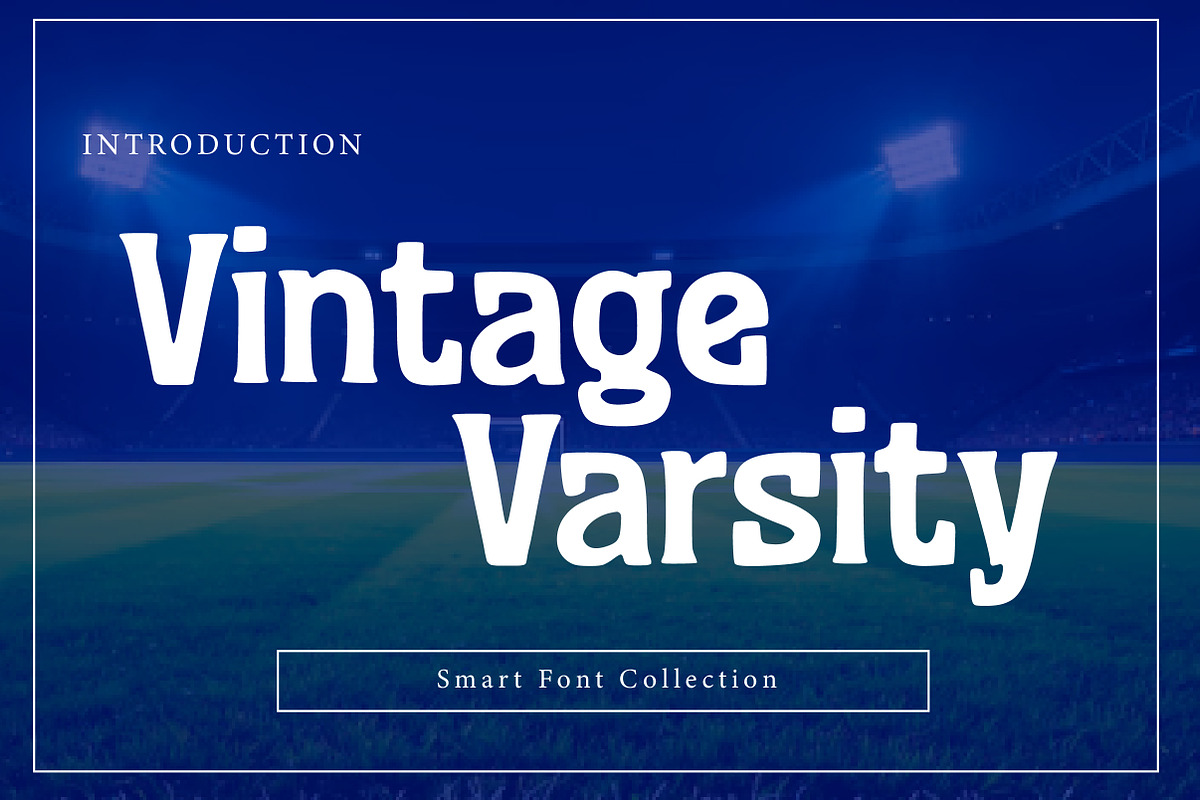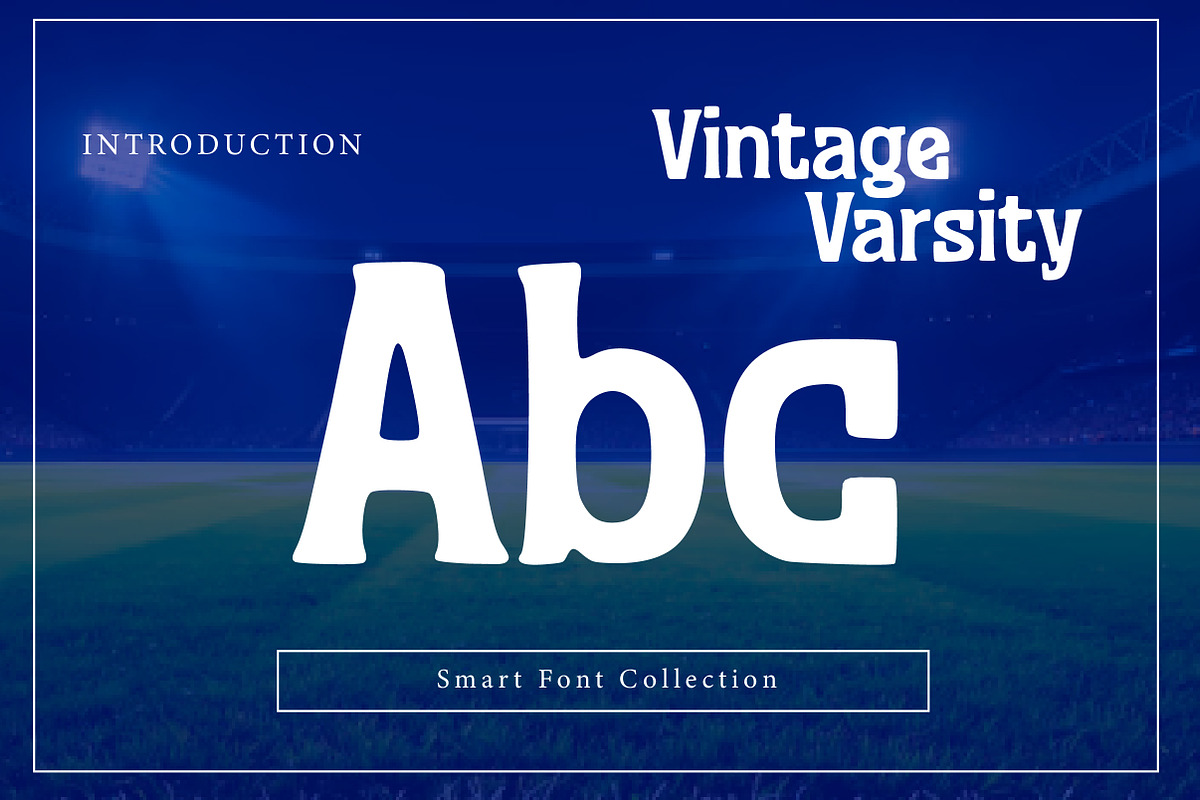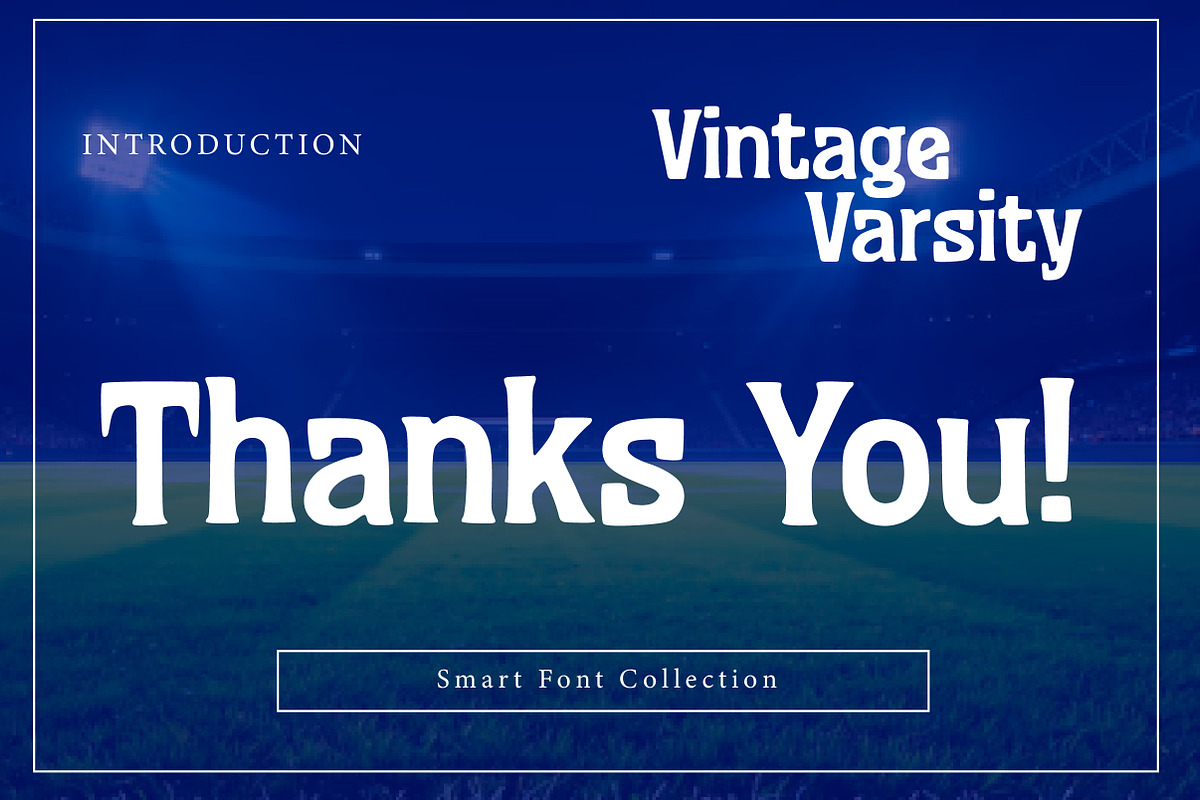
Vintage Varsity
Vintage Varsity is a bold retro display font inspired by classic college lettering and old-school athletic branding. With strong, chunky shapes and a nostalgic sports poster feel, this typeface is perfect for team logos, varsity jackets, badges, school designs, merchandise, posters, packaging, and vintage-inspired branding. Vintage Varsity delivers confident impact and timeless Americana energy—ideal for designs that want a sporty, heritage look with bold readability.